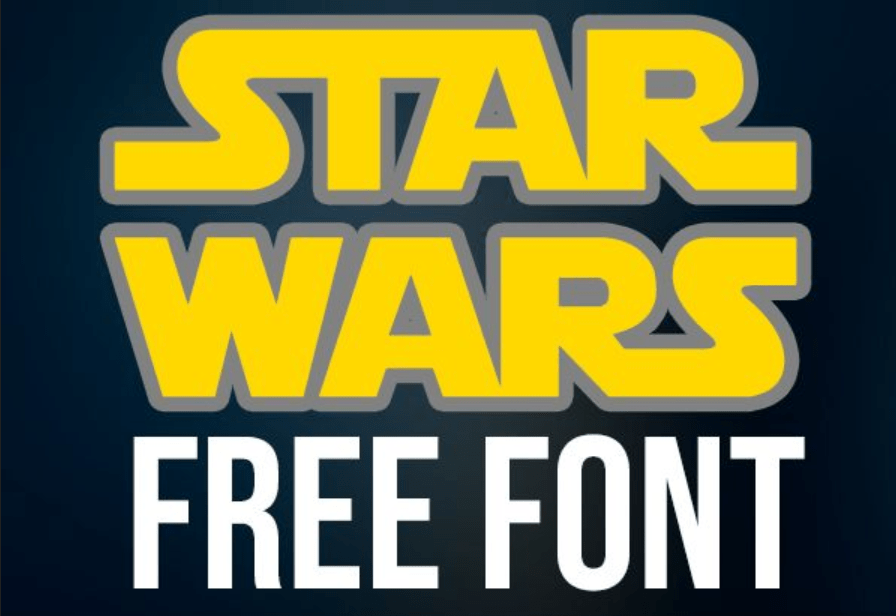
Star Wars Font Color . The star wars color palette has been the same since 1977. Iconian fonts via font space) we're starting off strong with this great font from iconian fonts. But, we can achieve a close approximation using a combination of font selection, effects, and. Web star wars’ logo color represents power. Choose from star jedi, sf distant galaxy and other fonts that imitate the star.
There is a free font available today that mimics the look of the original star wars font called star jedi, created. The star wars color palette has been the same since 1977. Iconian fonts via font space) we're starting off strong with this great font from iconian fonts. Web additionally, to recreate the authentic star wars font, you should make your text the same color as the original font and you should capitalize all. Web each star wars film begins with a text introduction setting the scene. Web modified star wars logo by joe johnston. But, we can achieve a close approximation using a combination of font selection, effects, and.
Web modified star wars logo by joe johnston. Star Wars Font Color Star wars’ color scheme can be used for design projects. Web canva doesn't offer the exact star wars font. Web create text graphics with star wars font online and download free fonts for local use. Web each star wars film begins with a text introduction setting the scene. The star wars color palette has been the same since 1977.
[DOWNLOAD] Free Star Wars Font Star wars font, Star wars awesome Star Wars Font Color Web star wars’ logo color represents power. Web additionally, to recreate the authentic star wars font, you should make your text the same color as the original font and you should capitalize all. Web modified star wars logo by joe johnston. The text famously crawls across the screen. Web each star wars film begins with a text introduction setting the. Star Wars Font Color.
Free Star Wars Font Here You Can Change The Star Wars Font Color, Size Star Wars Font Color There is a free font available today that mimics the look of the original star wars font called star jedi, created. But, we can achieve a close approximation using a combination of font selection, effects, and. Choose from star jedi, sf distant galaxy and other fonts that imitate the star. Web each star wars film begins with a text introduction. Star Wars Font Color.
Star Wars Letters Font Printable DIY Paper Letters Outlines Etsy Star Wars Font Color The star wars color palette has been the same since 1977. The text famously crawls across the screen. Web create text graphics with star wars font online and download free fonts for local use. Iconian fonts via font space) we're starting off strong with this great font from iconian fonts. Web each star wars film begins with a text introduction. Star Wars Font Color.
Star Wars Font SVG Font Svg Star Wars Alphabet SVG Font Etsy Australia Star Wars Font Color The text famously crawls across the screen. Iconian fonts via font space) we're starting off strong with this great font from iconian fonts. But, we can achieve a close approximation using a combination of font selection, effects, and. Star wars’ color scheme can be used for design projects. Web each star wars film begins with a text introduction setting the. Star Wars Font Color.
Star Wars Font, Star Wars Name, Star Wars Font Svg, Star Wars Font Color Web star wars’ logo color represents power. Iconian fonts via font space) we're starting off strong with this great font from iconian fonts. Star wars’ color scheme can be used for design projects. The text famously crawls across the screen. Web create text graphics with star wars font online and download free fonts for local use. Web additionally, to recreate. Star Wars Font Color.
Star Wars Font Svg Star Wars Alphabet Clipart Star Wars Etsy Star Wars Font Color There is a free font available today that mimics the look of the original star wars font called star jedi, created. Web create text graphics with star wars font online and download free fonts for local use. But, we can achieve a close approximation using a combination of font selection, effects, and. Web star wars’ logo color represents power. Web. Star Wars Font Color.
STAR WARS FONT svg Star Wars Alphabet svg Star Wars letters Etsy Star Wars Font Color The star wars color palette has been the same since 1977. Web create text graphics with star wars font online and download free fonts for local use. Iconian fonts via font space) we're starting off strong with this great font from iconian fonts. Choose from star jedi, sf distant galaxy and other fonts that imitate the star. Web canva doesn't. Star Wars Font Color.
Star Wars Font in Canva Canva Templates Star Wars Font Color Web star wars’ logo color represents power. There is a free font available today that mimics the look of the original star wars font called star jedi, created. The star wars color palette has been the same since 1977. Web additionally, to recreate the authentic star wars font, you should make your text the same color as the original font. Star Wars Font Color.